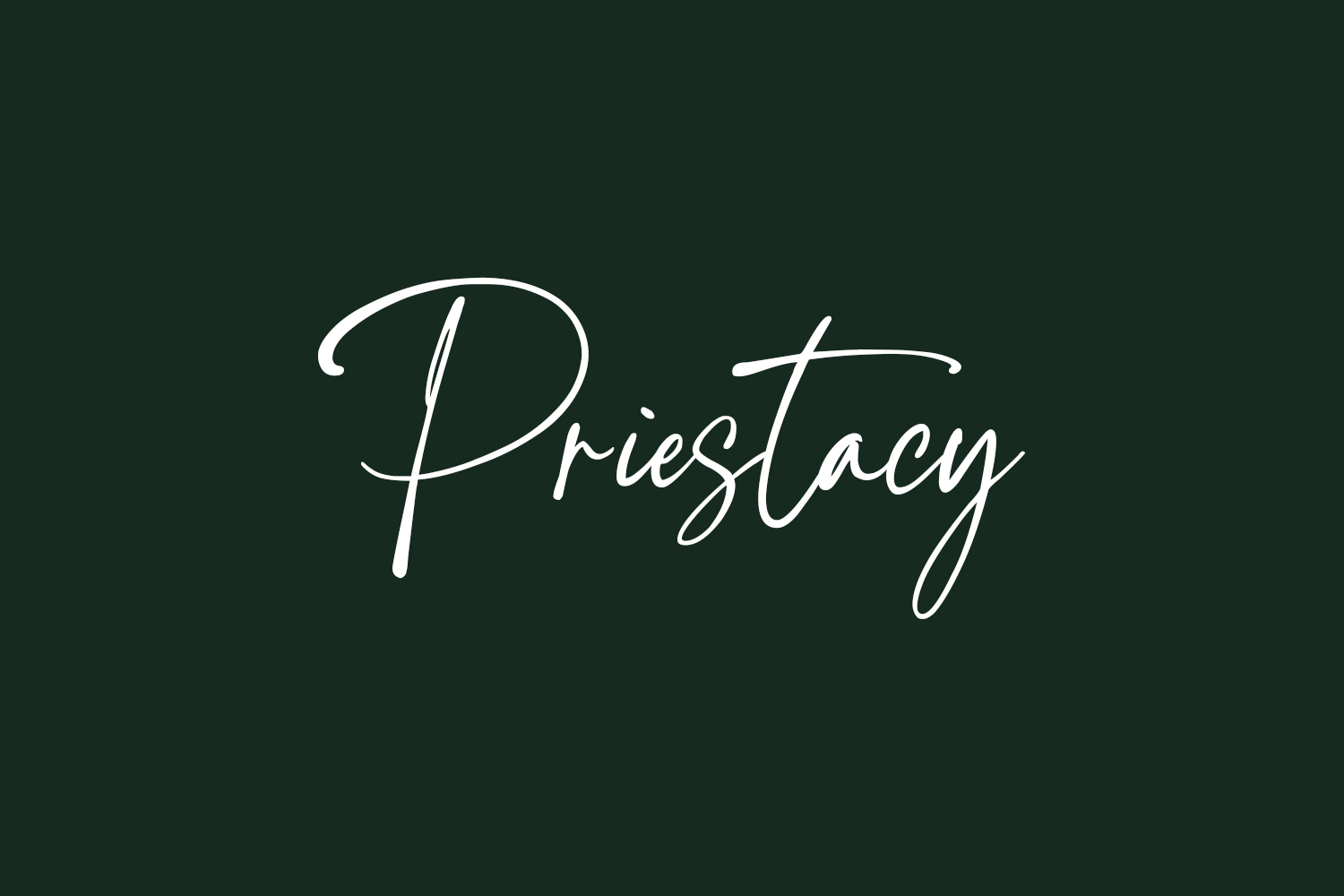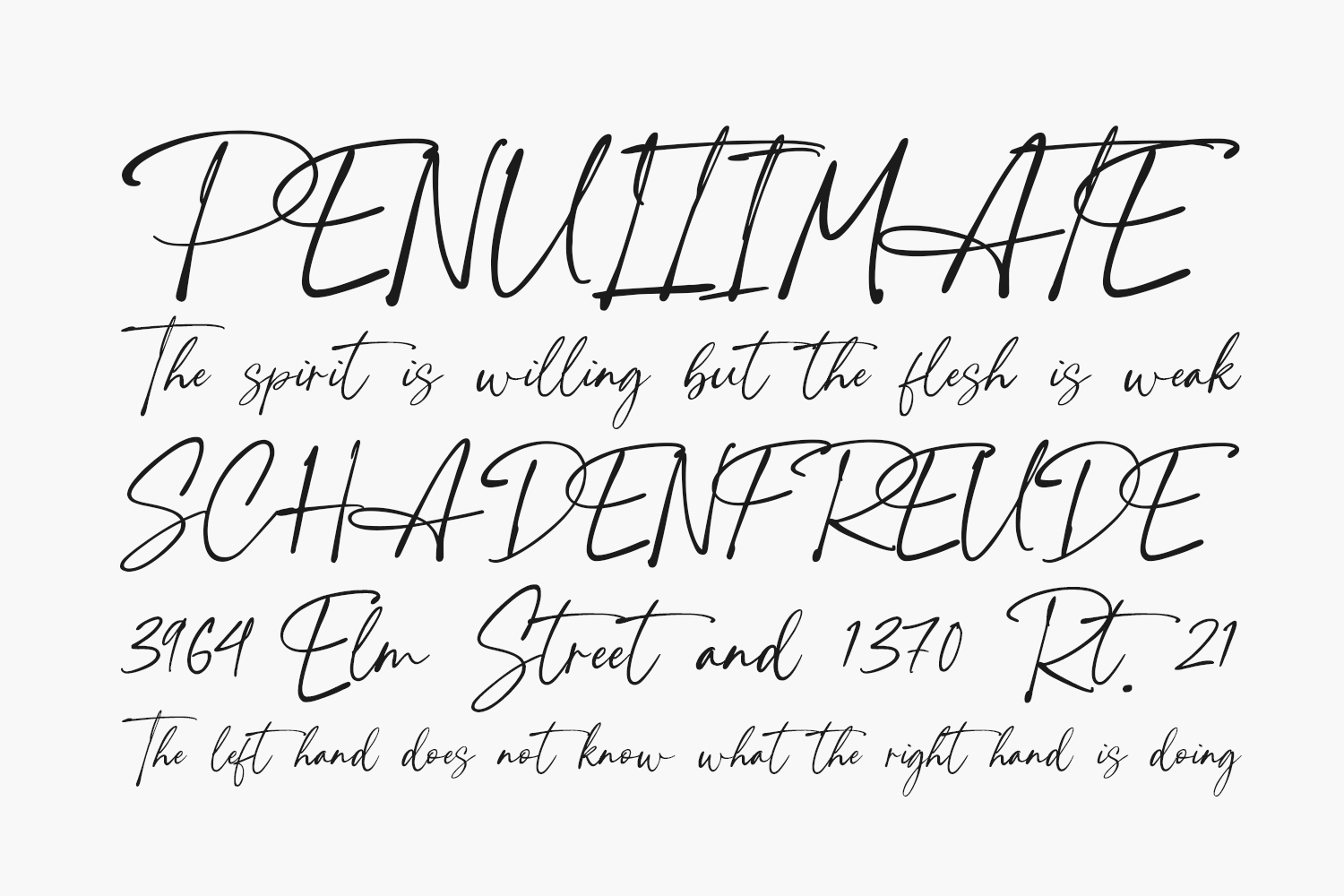
Discover the elegance and sophistication of Priestacy Free Font, a captivating script font designed to elevate your projects to new heights. With its delicate strokes and stylish flair, Priestacy is the perfect choice for a wide range of creative applications.
From branding to invitations, stationery to wedding designs, social media posts to advertisements, product packaging to product designs, labels to photography, watermarks to special events, and beyond, Priestacy shines in every context. Its versatility allows it to seamlessly enhance your projects and make a lasting impression on your audience. Priestacy Free Font is free for personal use only. Please purchase the full version for commercial use.